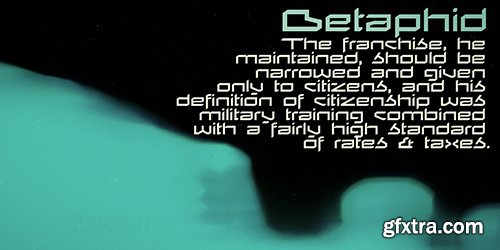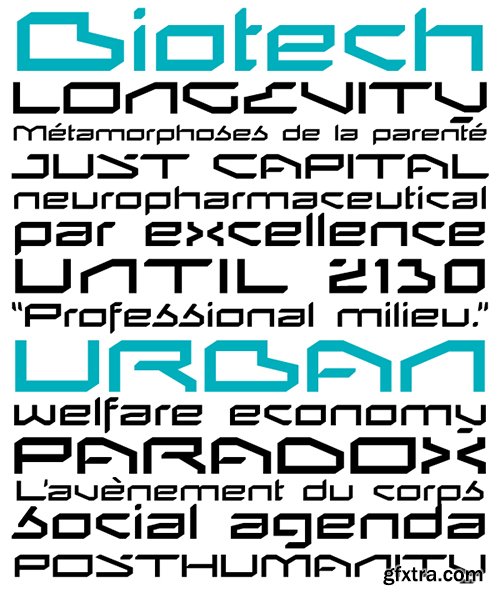
Betaphid Font $30
Betaphid is a wide, futuristic sans-serif display font. After the singularity,
when the robots send in their letters of resignation, they’ll be printed in Betaphid..